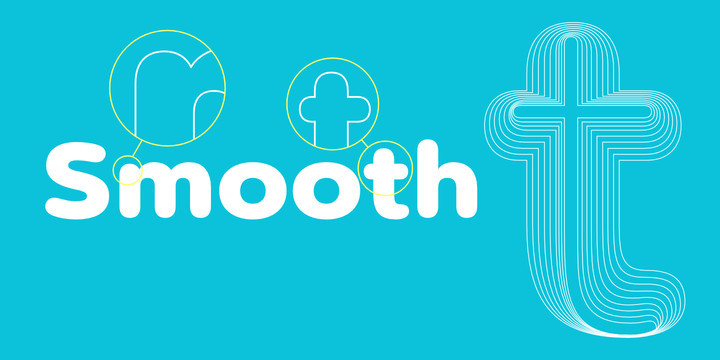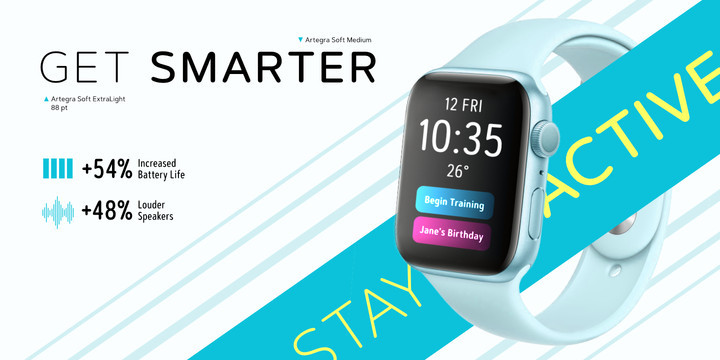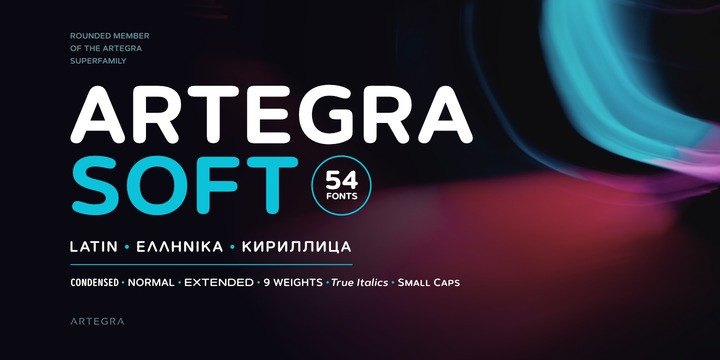
Artegra Soft Font
Artegra Soft is the round cornered addition to the Artegra superfamily. It’s based on the perfectionist geometric forms of Artegra Sans, all the glyphs are softened with round corners with manual corrections to the soft edges. The family has 54 fonts in condensed, normal and extended widths, 9 weights per width with matching true italics to achieve the upmost versatility. With more than a thousand glyphs per font, it supports more than a hundred languages including the Cyrillic and Greek languages.